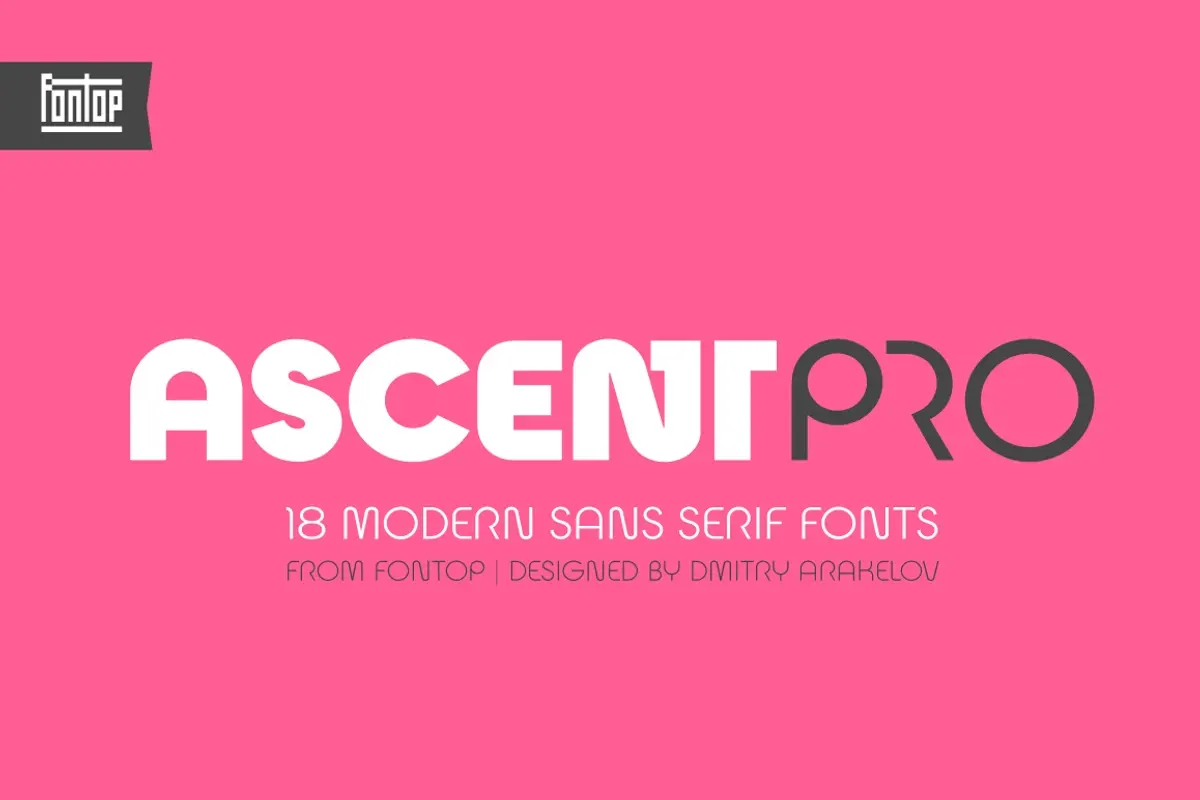
Ascent Pro (18 Fonts) Free Download is a premium sans-serif typeface family built for flexibility, clarity, and modern appeal. Featuring 18 fonts across a full range of weights and styles—including italics—Ascent Pro is perfect for branding systems, web design, UI/UX projects, corporate identity, editorial layouts, and print materials.
With its clean geometry, excellent legibility, and professional structure, this font family adapts seamlessly to both headlines and body text. Ascent Pro supports multilingual characters and performs flawlessly on Mac and Windows platforms, making it a dependable asset for global design work.